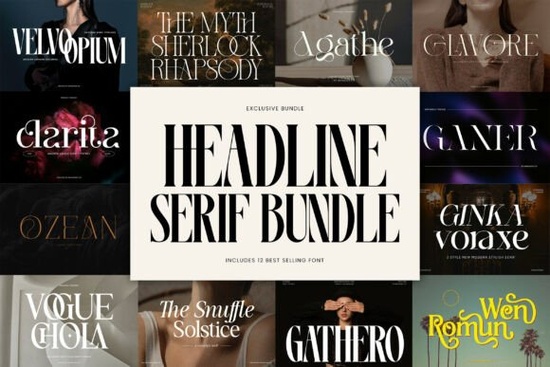
If you're looking for bold, elegant serif fonts that make a statement on magazine covers, luxury branding, or social media graphics, the Headline Serif Bundle Font delivers exactly what creative professionals need. This curated collection brings together 12 high-impact serif typefaces designed for editorial work, fashion design, and premium visual storytelling.
What’s in the Headline Serif Bundle?
The bundle includes a diverse range of fonts, each crafted with attention to detail and designed for maximum visual impact. You’ll find:
- Sherlock – A strong, modern serif with sharp contrast and clean lines.
- Gathero – Elegant and expressive, perfect for fashion editorials.
- Wen Romun – A classic serif with subtle flair and timeless appeal.
- The Snuffle Solstice – Unique flourishes add personality to headlines.
- Ginka Voraxe – High-contrast strokes for dramatic, standout text.
- Agathe – Refined and balanced, ideal for professional layouts.
- Clarita – Delicate ligatures and refined details suit luxury branding.
- Vorage – Bold and dynamic, great for posters and large-format prints.
- Vogue Chola – Inspired by high-end fashion magazines, with a touch of drama.
- Ganer – Clean structure with artistic variations for creative freedom.
- Ozean – Fluid curves and modern elegance for contemporary designs.
- Glavore – Sophisticated alternates and decorative elements for unique touches.
How can I use these fonts in my designs?
Whether you’re building a brand identity, designing a print-on-demand product, or creating content for Instagram, this collection gives you flexibility and style. Here’s how it fits into real workflows:
- Logos & Branding: Use strong serifs like Ginka Voraxe or Vogue Chola to create memorable, upscale brand marks.
- Magazine Layouts: The high-contrast styles shine in editorial spreads perfect for fashion, lifestyle, or culture publications.
- Packaging Design: Elevate your product labels or boxes with fonts that suggest quality and craftsmanship.
- Posters & Quotes: Large-scale headlines look stunning when paired with intricate letterforms and ornamental details.
- Social Media Templates: Create eye-catching quote cards or promotional posts using fonts like Glavore or Ozean.